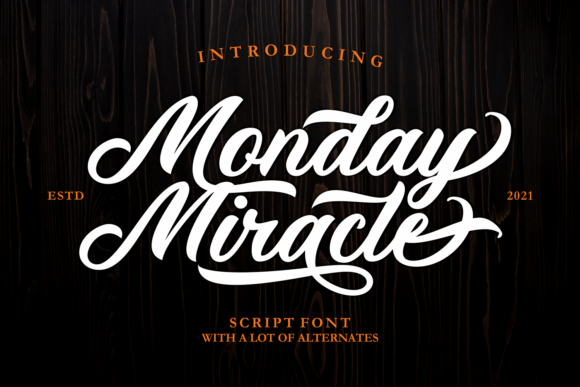
Monday Miracle: Ignite the Pages with Poetic Elegance
In the realm of design, where words dance and visual aesthetics reign supreme, allow us to introduce you to Monday Miracle – an enchanting script font that weaves a spell of elegance and grace upon your digital creations. Inspired by the ethereal beauty of handwritten letters, this font is a masterpiece that transforms ordinary text into captivating works of art.
With Monday Miracle, ordinary words morph into expressions of heartfelt emotion, painting vivid pictures in the minds of your readers. Every curve, every stroke, every deliberate detail of this font exudes a sense of intimacy and authenticity, drawing your audience into a world where imagination and eloquence collide.
Say goodbye to mundane fonts that blend into the background, unnoticed and unappreciated. Monday Miracle is a bold statement, a declaration of your unique style and discerning taste. It's the perfect font for projects that demand a touch of sophistication, a sprinkle of whimsy, and a dash of unforgettable charm.
Picture this: your words, rendered in the flowing lines of Monday Miracle, dancing across the pages of a captivating novel, inviting readers to lose themselves in a world of wonder and enchantment. Or perhaps you're designing an invitation for a special occasion, where every word carries the weight of sentiment and heartfelt emotion. Monday Miracle will transform your invitations into cherished keepsakes, capturing the essence of the event and leaving a lasting impression on your guests.
The possibilities are endless, for Monday Miracle is a font that transcends boundaries. It's equally at home in the world of fashion, adding a touch of glamour to your designs or creating eye-catching labels that demand attention. Its versatility extends to the realm of make-up, where it can adorn packaging with a touch of femininity and allure. And in the world of stationery, Monday Miracle elevates ordinary notebooks and greeting cards into exquisite expressions of personal style.
So, dear creative, embrace the magic of Monday Miracle and unlock a world of design possibilities. Let your imagination soar, and let this enchanting font guide your fingers as you weave tales of beauty and inspiration. Experience the joy of transforming words into art, and let Monday Miracle be your constant companion on this creative journey.